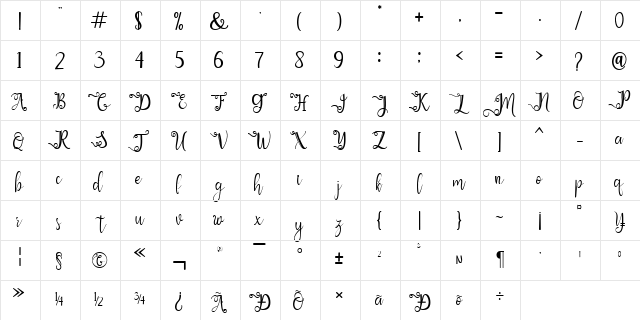
chathaleya Regular
Design Context for chathaleya Typeface
chathaleya is a composed and adaptable typeface that performs quietly and consistently across a wide range of design contexts.